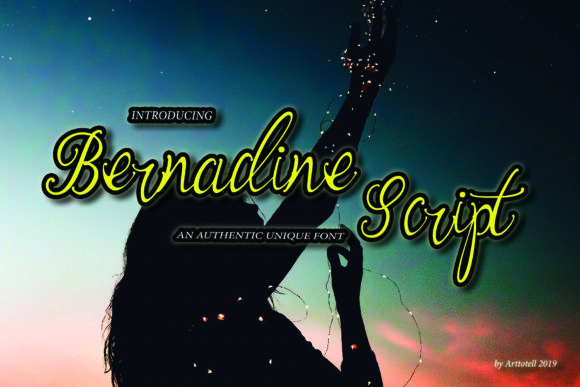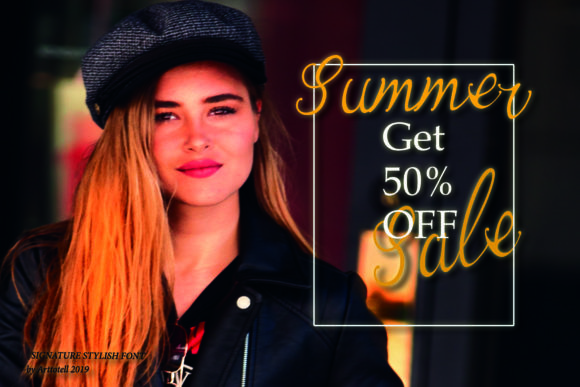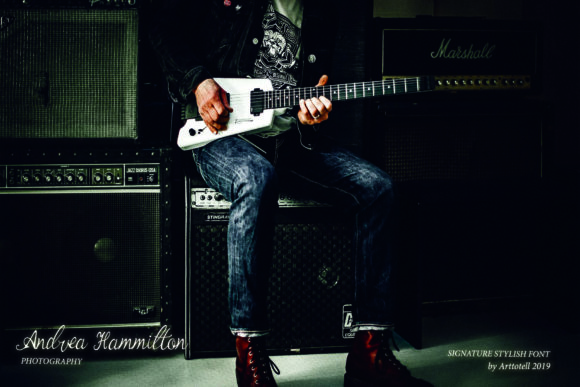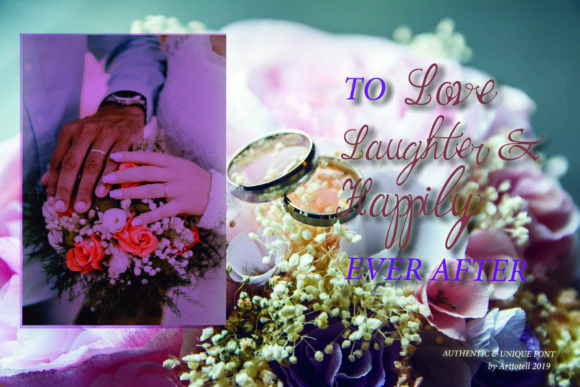
About Bernadine Script Font
The Bernadine Script is an authentic, unique, signature font with a natural and elegant calligraphy look. It can be used in a wide range of design projects and is easy to use.
It has a variety of unique handmade-look outcomes that can be combined together with a large range of designs.